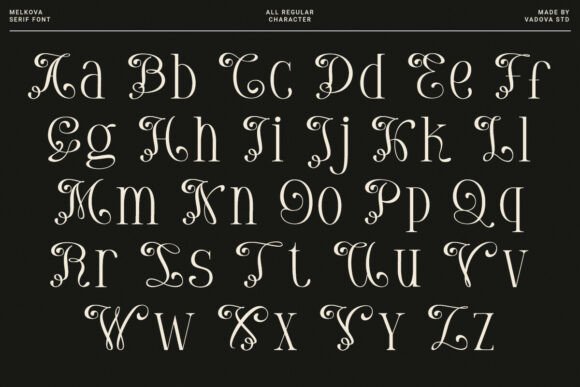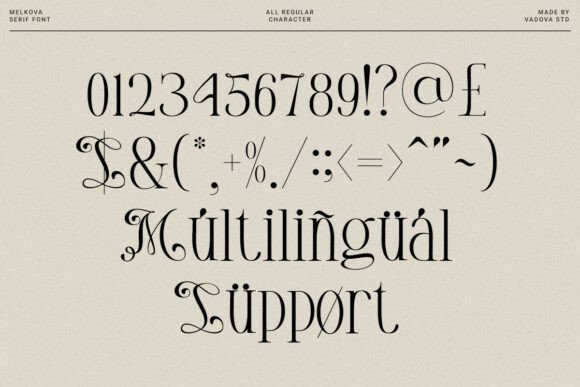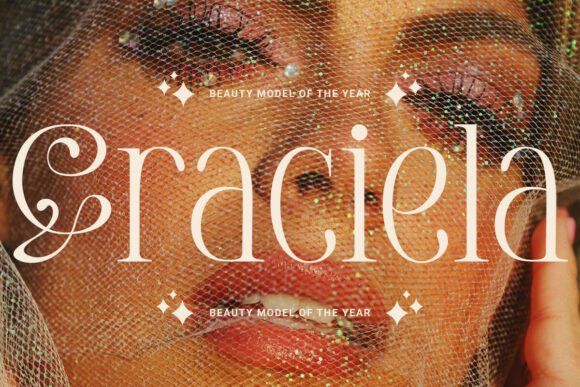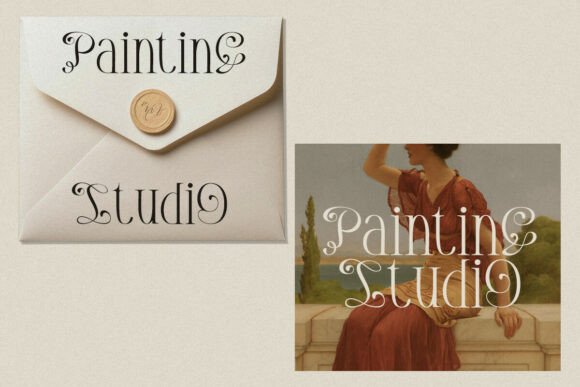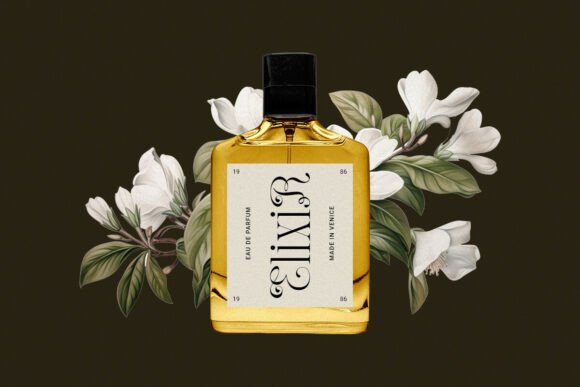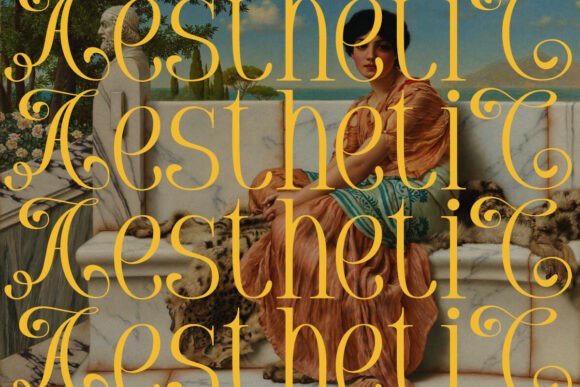
Introduction to Melkova Font
Have you ever found yourself staring at a blank page, searching for the perfect font to bring your creative project to life? That’s where Melkova Font comes in – a stylish serif font that’s about to become your new favorite design resource. With its elegant and timeless character, Melkova Font is the perfect solution for designers looking to add a touch of sophistication to their work.
Whether you’re working on a high-quality magazine spread or a beautifully designed website, Melkova Font’s refined classical details and ornamental touches will elevate your design to new heights. And the best part? Its balanced proportions and readable letterforms ensure that your message gets across without any distractions. With Melkova Font, you can focus on the creative aspects of your project, knowing that you have a reliable design resource at your fingertips.
Key Features of Melkova Font
- Unique characteristics include its modern and elegant design, making it perfect for various creative projects, from logos to typography-based designs.
Honest Review: Melkova Font
As a designer, I’m always on the lookout for high-quality fonts that can elevate my creative projects. Recently, I stumbled upon the Melkova Font, and I must say, it’s a game-changer. The Melkova Font is a beautiful, elegant script font that’s perfect for designs that require a touch of sophistication.
- ✨ Elegant and refined design aesthetic
- ✨ Perfect for creative projects that require a touch of luxury
- ⚠️ The font does not have a transparent background, which may not be ideal for designs that require a subtle, background-aware font
- ⚠️ The font may not be suitable for very large text sizes, as it can become difficult to read
Overall, I’m really impressed with the Melkova Font. Its elegant design and high quality make it an excellent addition to any designer’s toolkit. While it may have some limitations, I believe the benefits far outweigh the drawbacks.